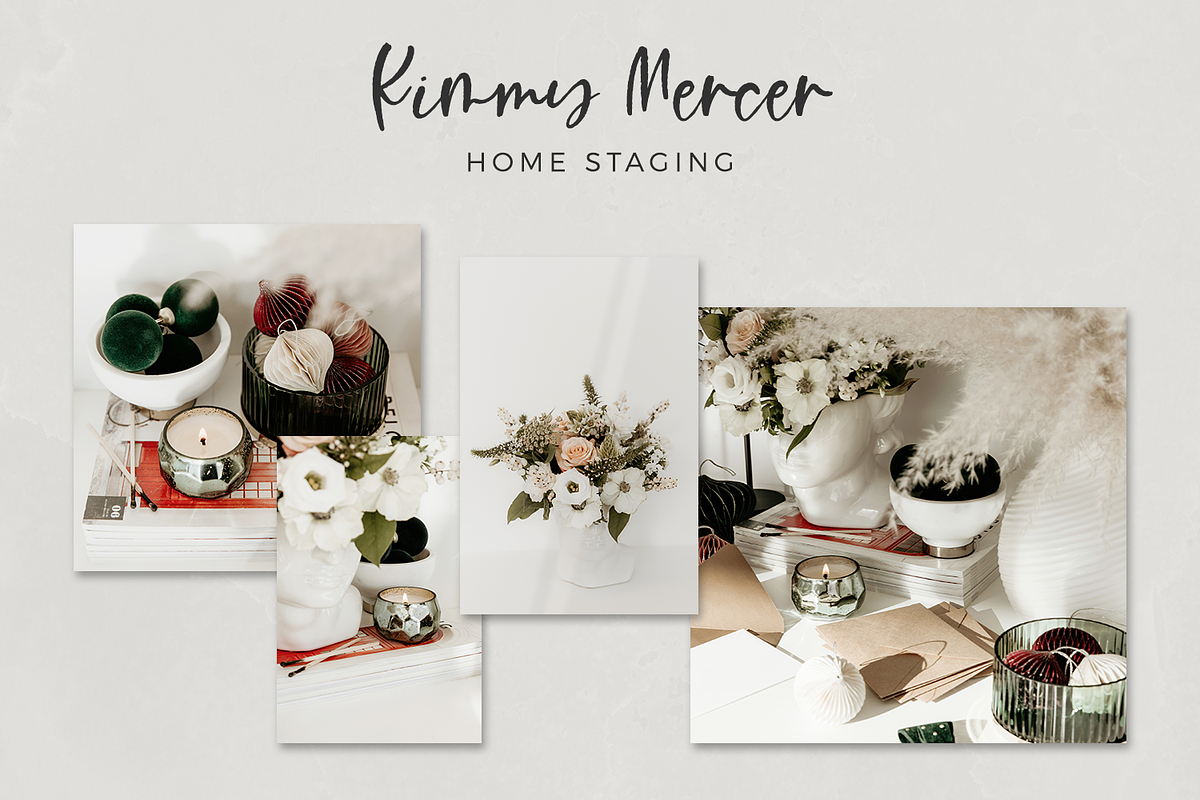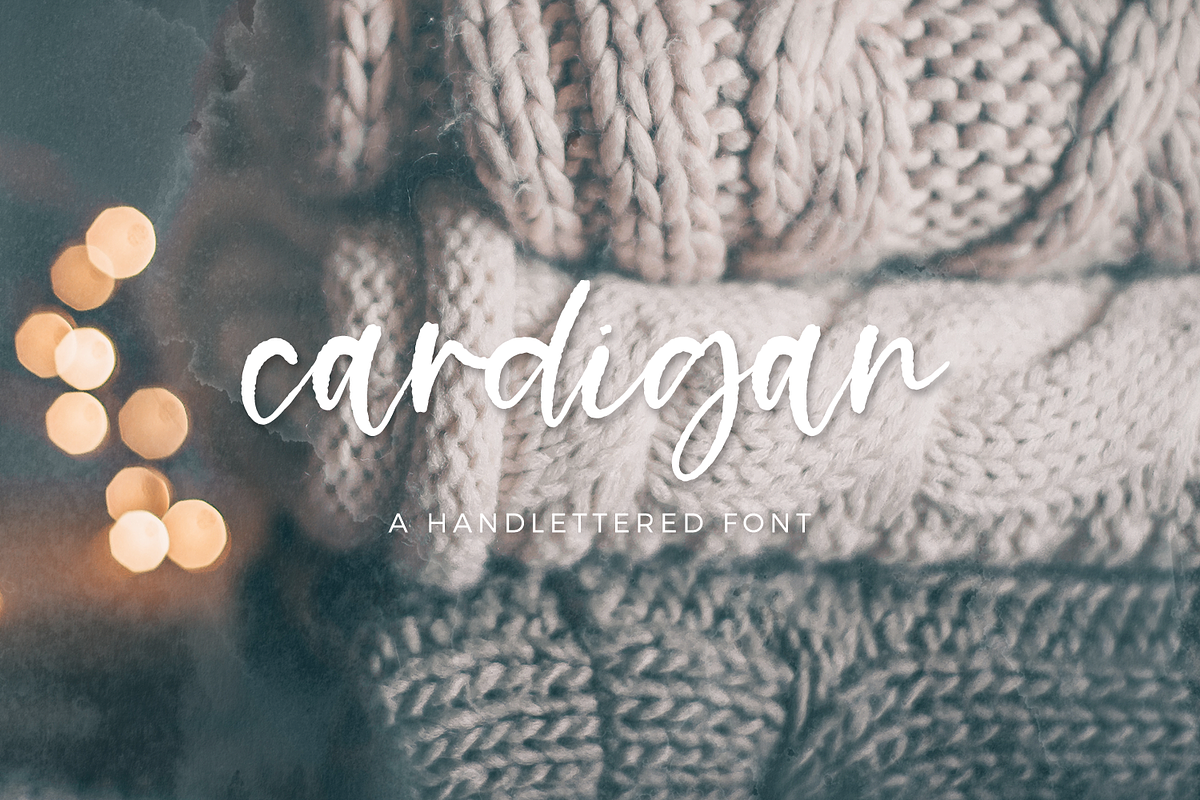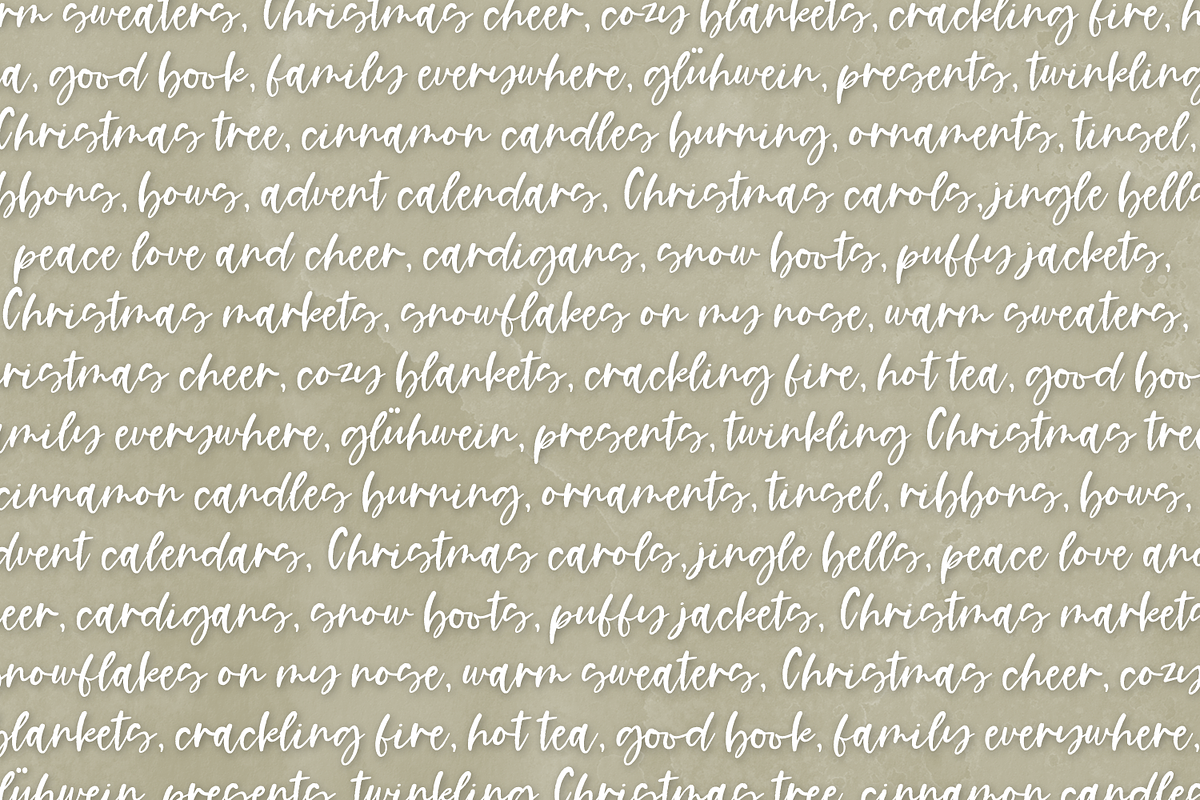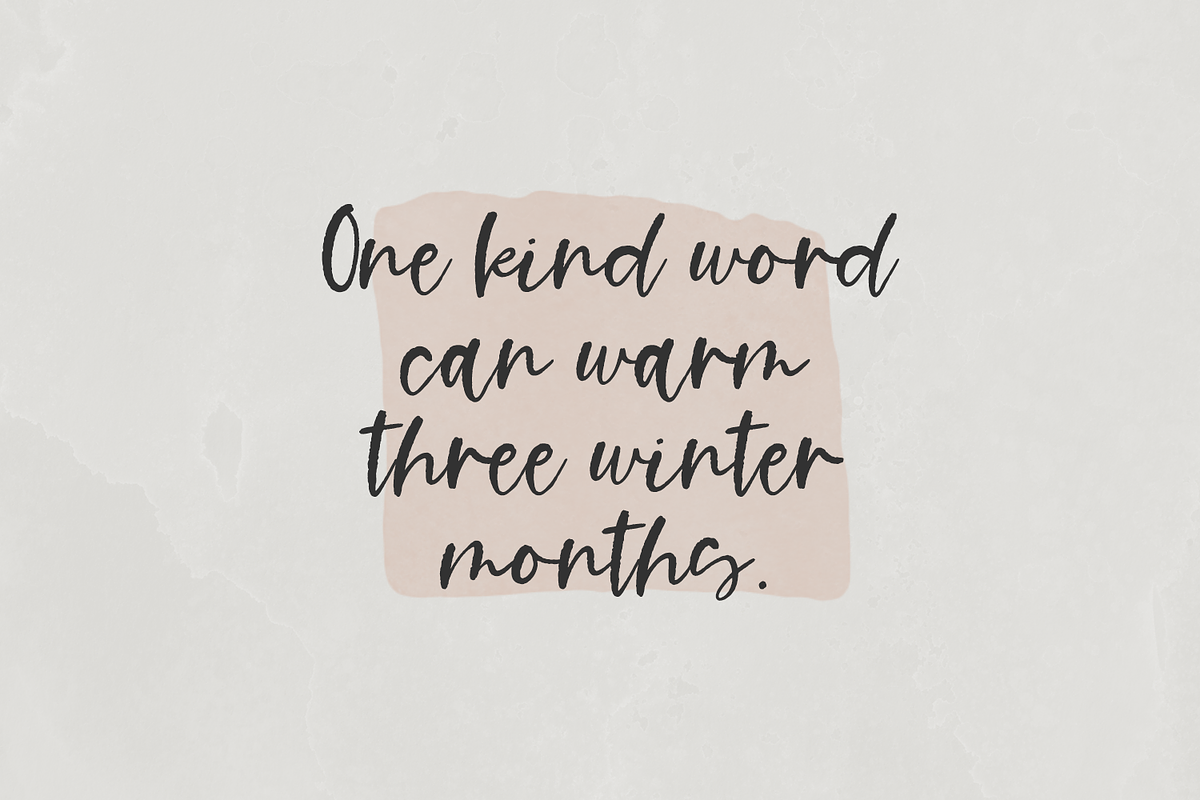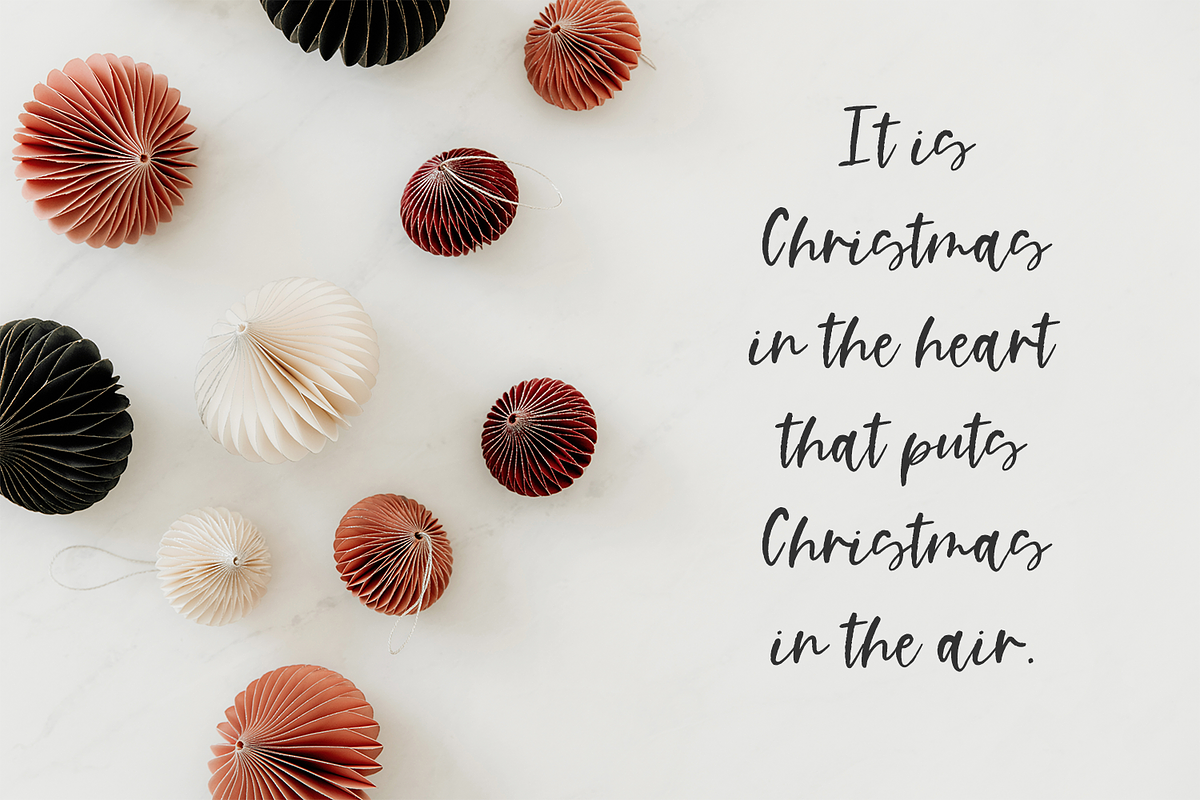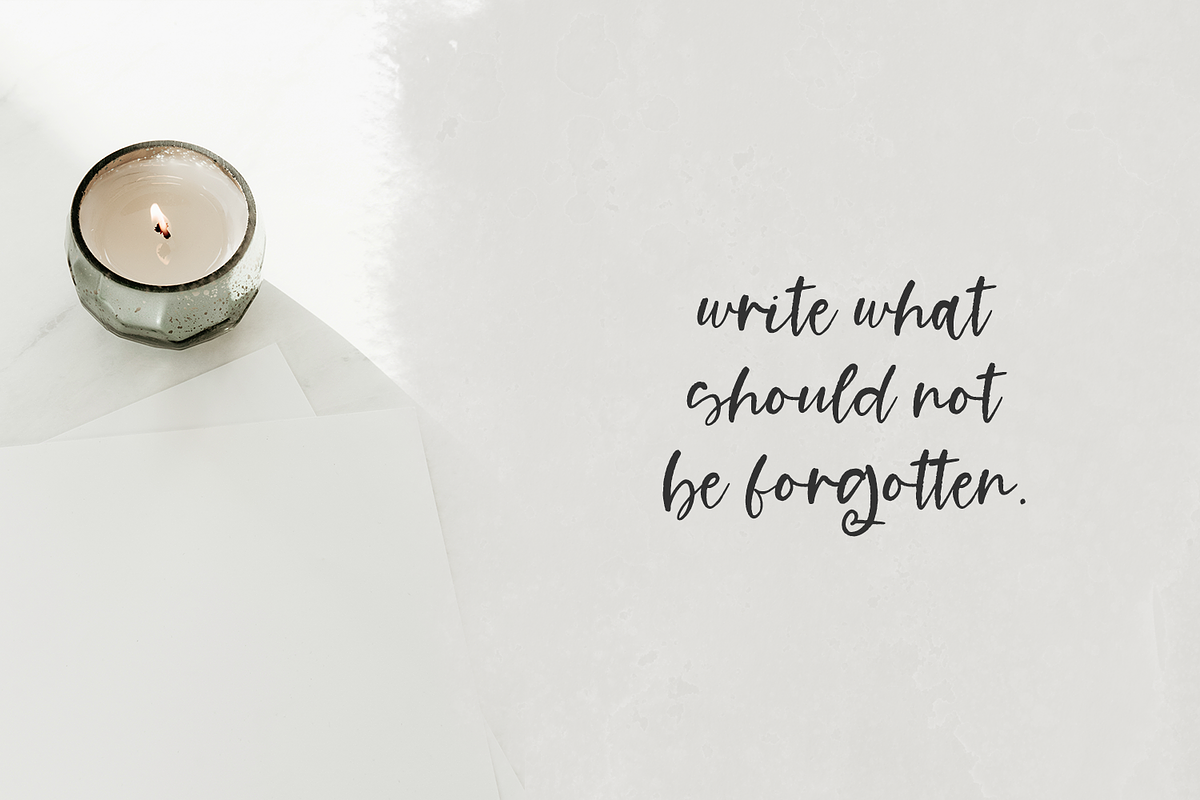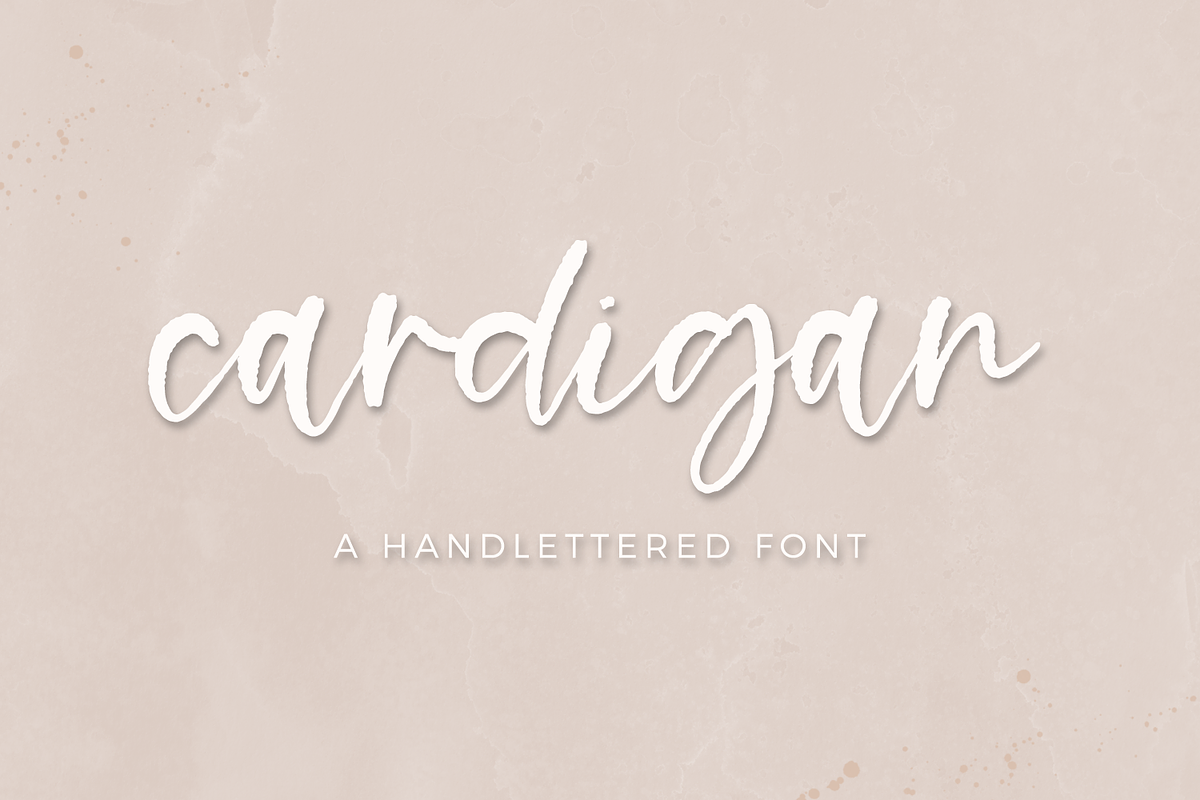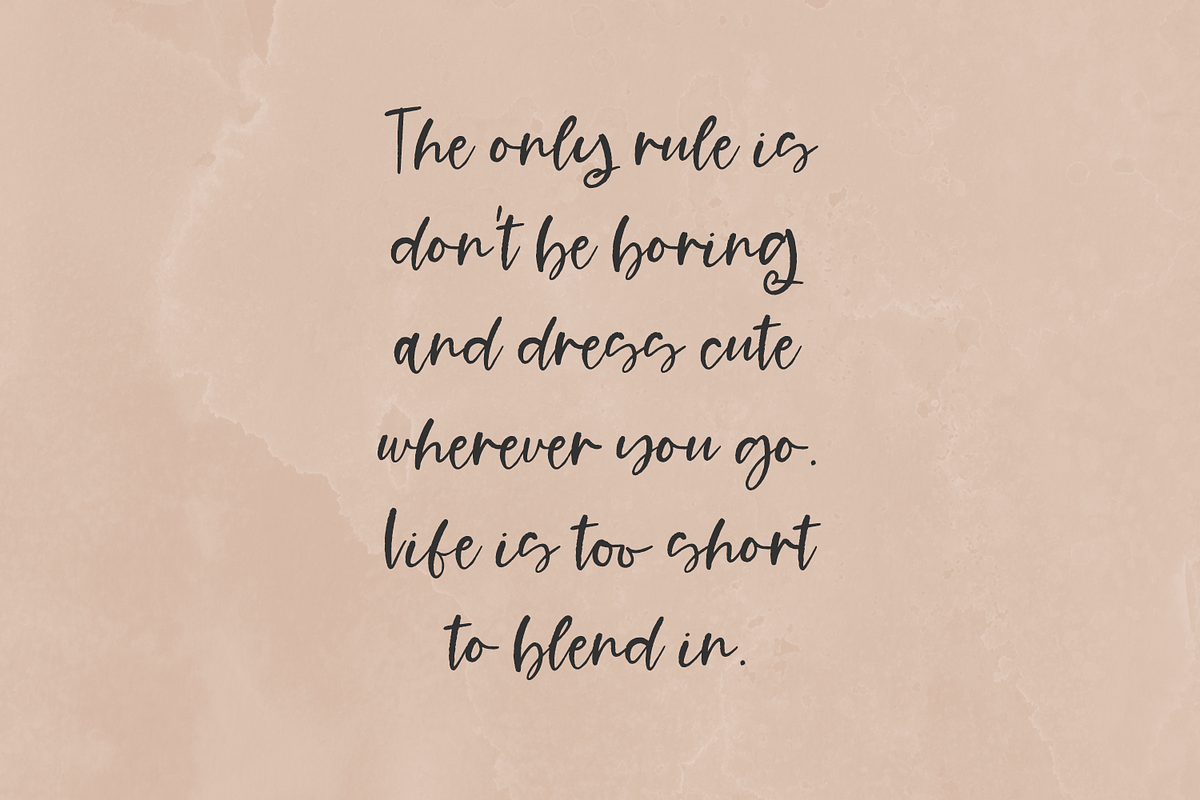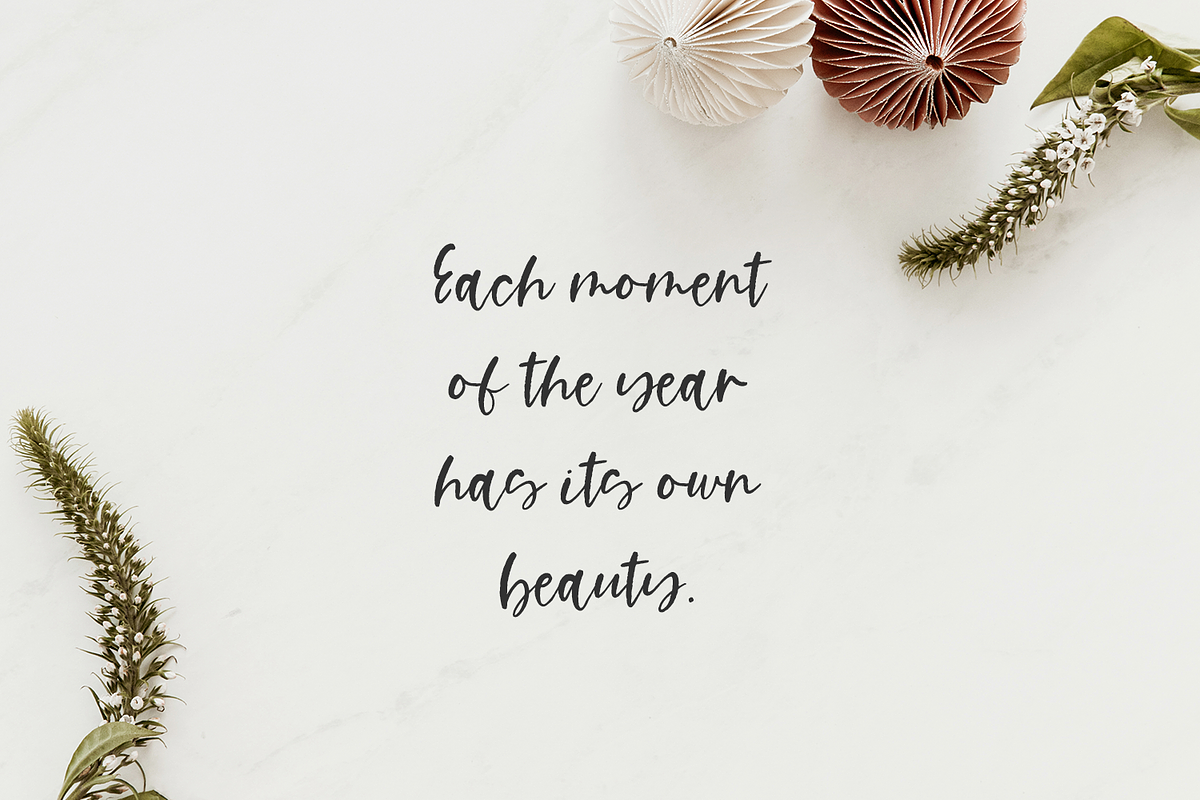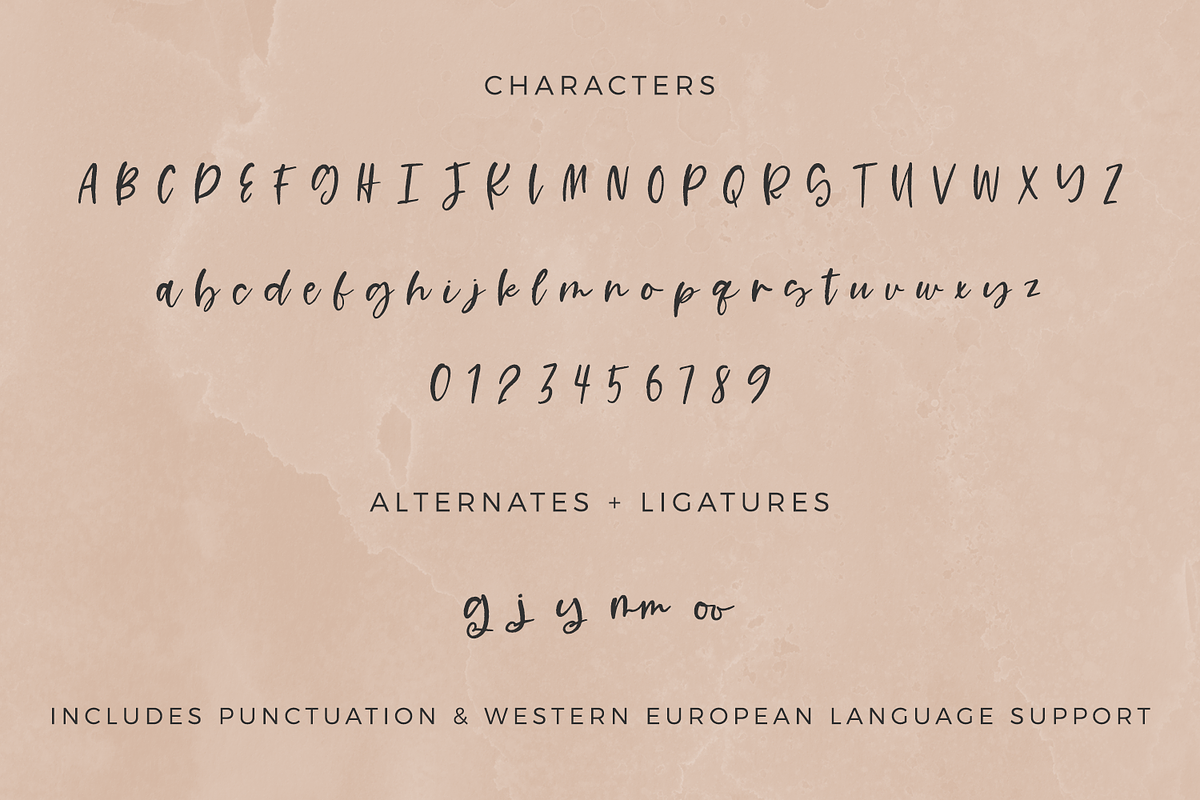
Cardigan Script
Introducing Cardigan Script, a bouncy textured font. Cardigan is handwritten & casual.
Cardigan Script is best for:
- logos + branding
- print design, like greeting cards
- header elements that need handwritten touch
- quote graphics for social media
Cardigan Script includes:
- full upper + lowercase characters
- numbers + punctuation
- Western European Language Support
- 3 alternate characters - g, j, y
- 2 ligatures - mm, oo